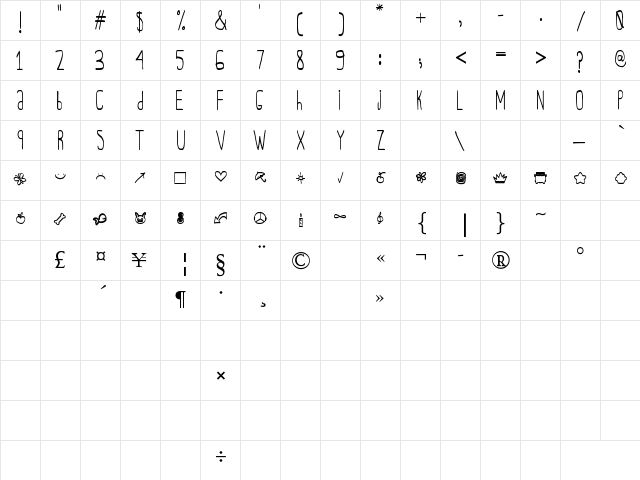
Oh_Adrian&Vickie Regular
| Foundry | Vickie Martinez Fonts |
| Designer | Vickie Martinez Fonts |
Design Context for Oh_Adrian&Vickie Typeface
Oh_Adrian&Vickie offers clean, dependable letterforms without strong stylistic allegiance, making it a practical choice for designers who need flexibility.